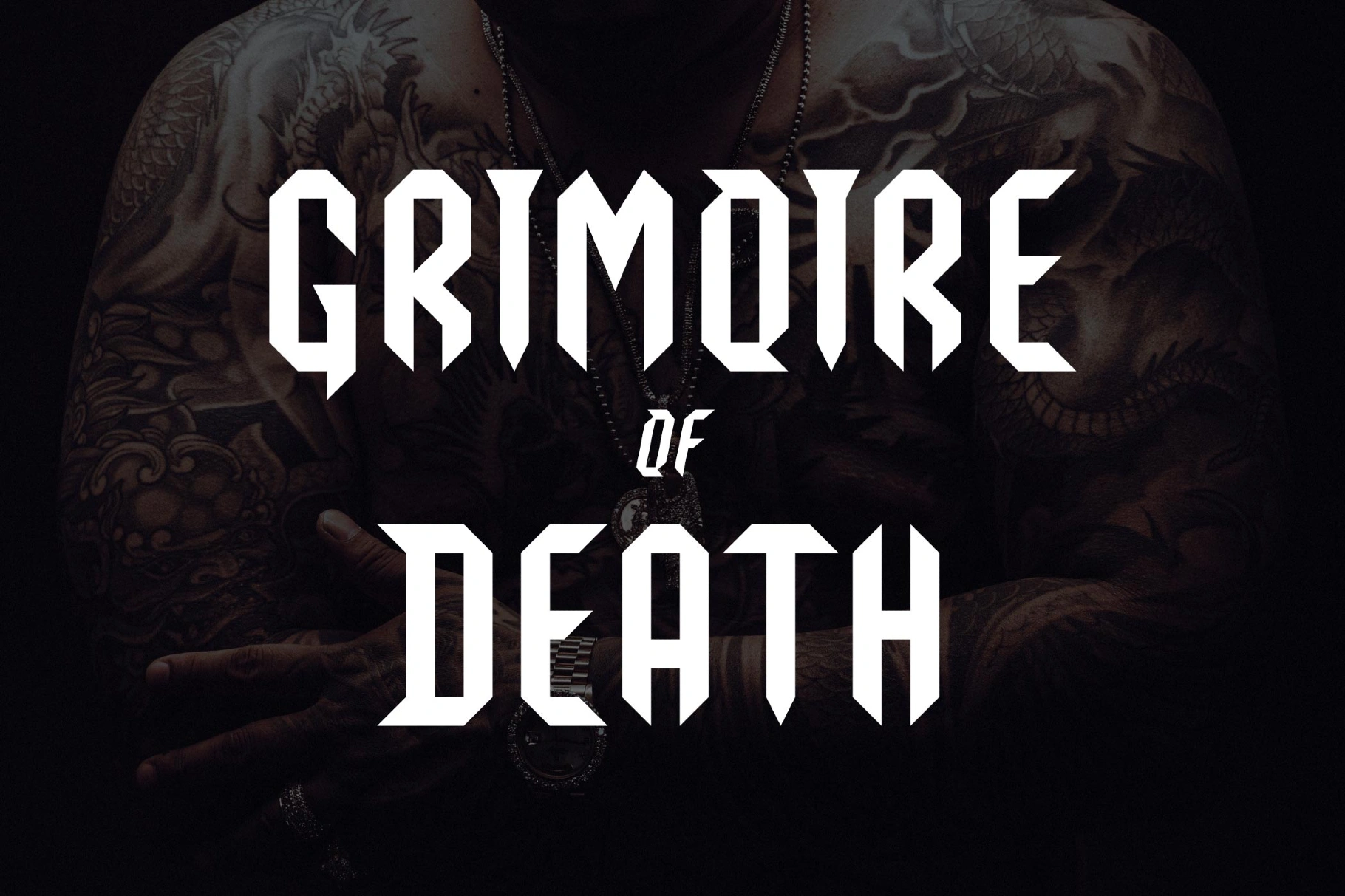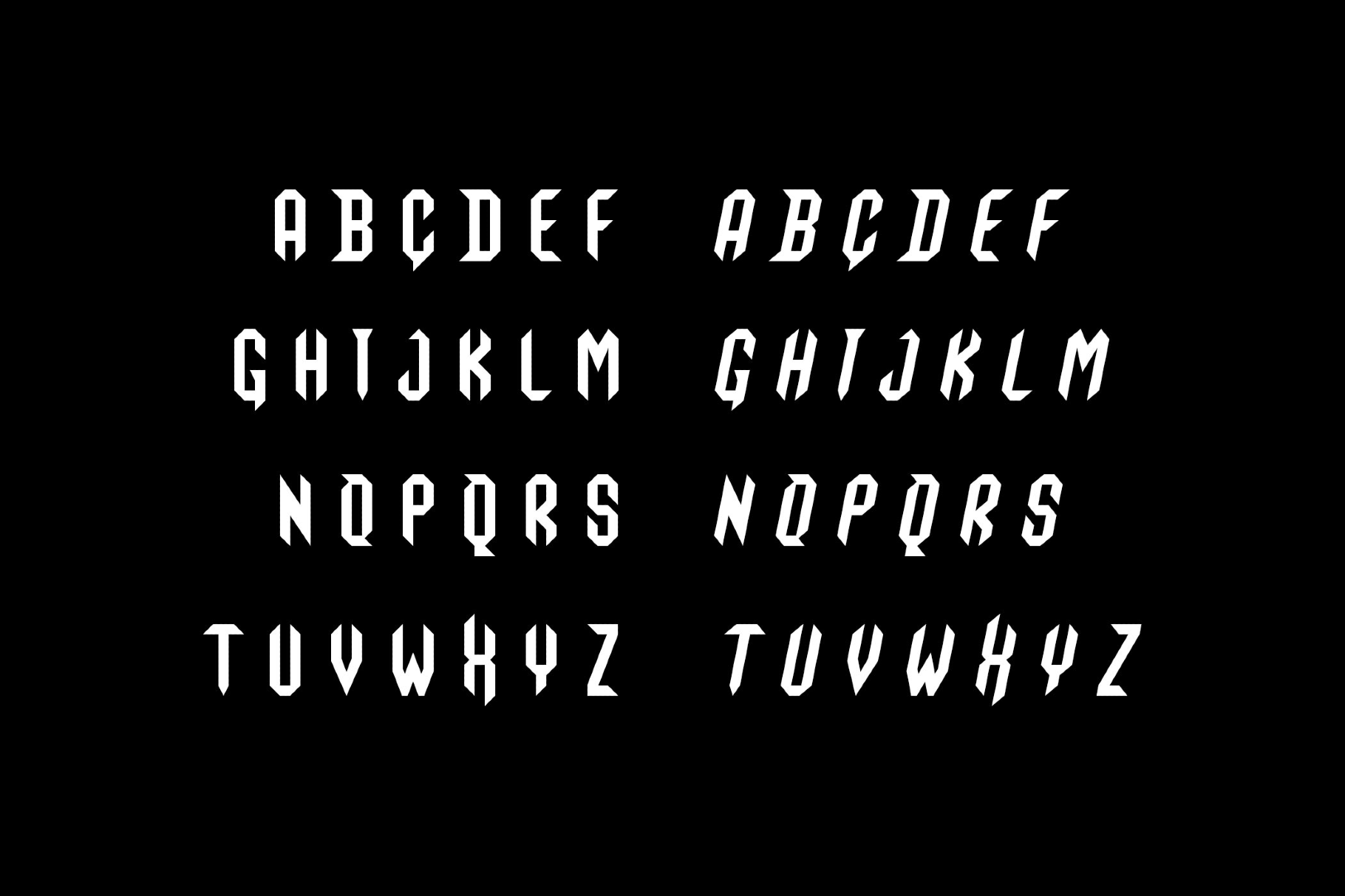
Grimoire of Death
Grimoire of Death is a faceted blackletter designed for riff-heavy headlines. It's got chiseled strokes, coffin-shaped counters, and tight spacing. The complementary italic style delivers a faster, more emphatic rhythm.
It works well for band logos and album titles, tour-merch tees, festival posters, sword-and-sorcery game covers, horror film credits, energy drink cans, biker patches and club flyers, tattoos, esports wordmarks, and streetwear labels.